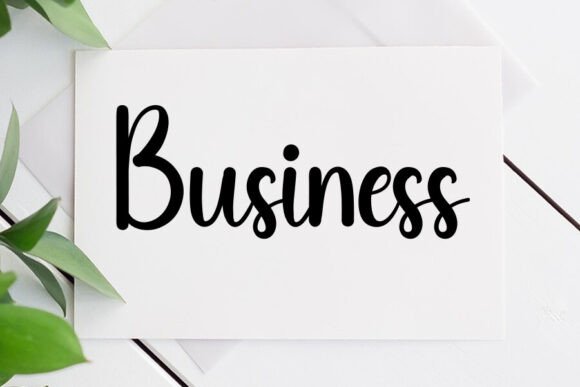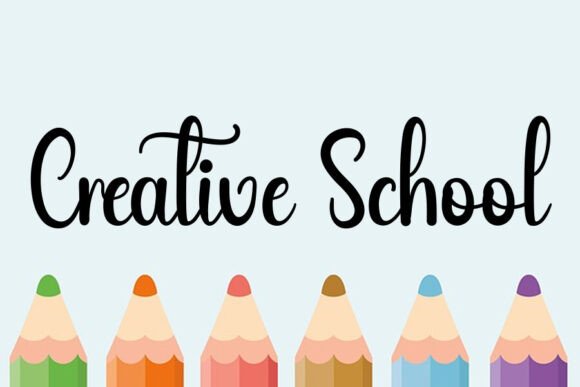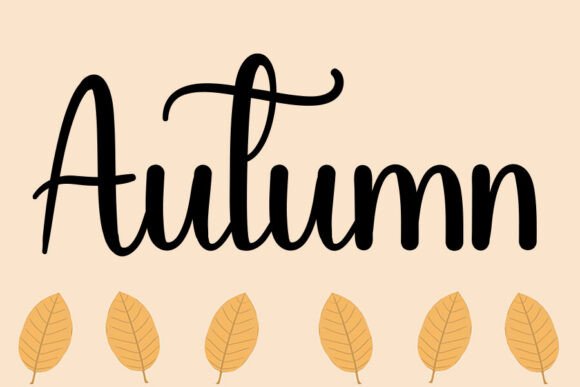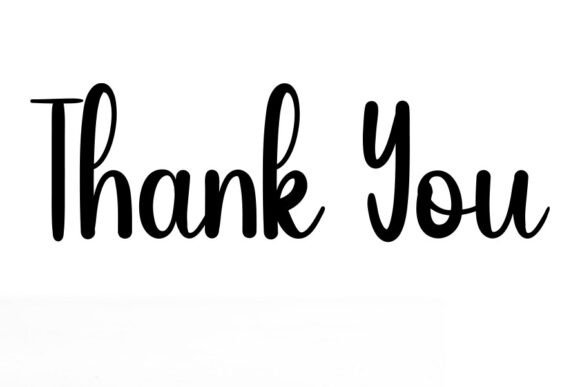
The Perfect Font for a Whimsical Touch
Have you ever been working on a design project, and the perfect font just seems to elude you? Maybe you’re creating a wedding invitation, a fashion lookbook, or a branding campaign, but nothing seems to capture the essence of your vision. This is where the magic of the Balcony Font comes in.
With its sweet and cursive handwritten style, the Balcony Font adds a joyful and romantic touch to any design project. Its gentle curves and playful feel make it the perfect choice for adding a whimsical touch to your work. Whether you’re a seasoned designer or just starting out, the Balcony Font is a valuable addition to your toolkit, offering endless possibilities for creativity and self-expression.
Key Features of Balcony Font
- Unique Characteristics: This font features a unique, ornate design with intricate details, making it ideal for decorative and artistic purposes.
- Font Weight and Style: The font comes in both regular and bold weights, offering flexibility for various design applications.
Review: Balcony Font
Overall, I think Balcony Font has a lot of potential, but it’s not without its flaws. Let’s start with the good stuff ✨.
- Unique Design: Balcony Font has a distinctive, hand-drawn feel that sets it apart from other fonts.
- Readability: Despite its decorative nature, Balcony Font is surprisingly easy to read, especially in larger sizes.
- Fun and Playful: The font’s quirky personality makes it perfect for projects that need a lighthearted touch.
However, there are some limitations to consider ⚠️.
- Lack of Consistency: The font’s irregularities can make it difficult to use in long blocks of text.
- Difficult to Customize: Balcony Font’s unique design can make it challenging to modify or combine with other fonts.
- Not Suitable for Body Text: Due to its decorative nature, Balcony Font is best used for headlines, titles, and other short-form text.
Overall, I think Balcony Font is a great choice for designers who want to add a touch of whimsy to their projects. However, it’s not a good fit for every project, and it’s essential to consider its limitations before using it.
Some common use cases for Balcony Font include:
- Creating eye-catching headlines and titles
- Designing unique signage and branding materials
- Adding a touch of elegance to wedding invitations and stationery